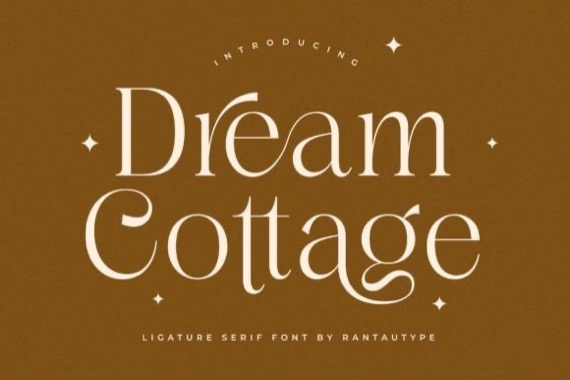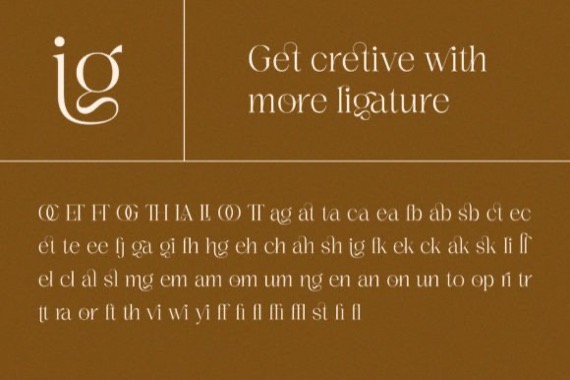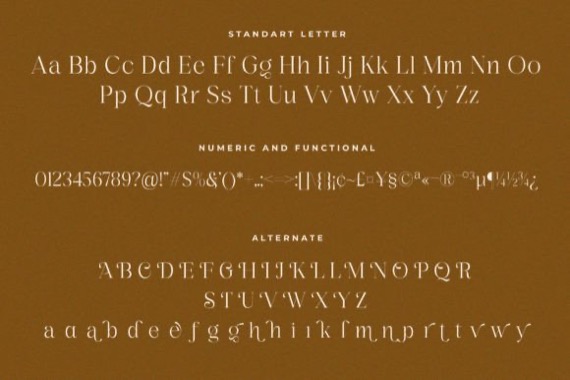
Dream Cottage is an elegant and luxury serif font that was created and shared by RantauType with beautiful contrast and unique ligature for optional. Specially designed for fashion-themed projects, perfectly suitable for creating elegant, chic, lifestyle designs such as logos, titles, magazines, and more. Now you have more choices when using Dream Cottage for typography. This font is PUA encoded which means you can access all of the amazing glyphs and ligatures with ease!
Dream Cottage Serif Font